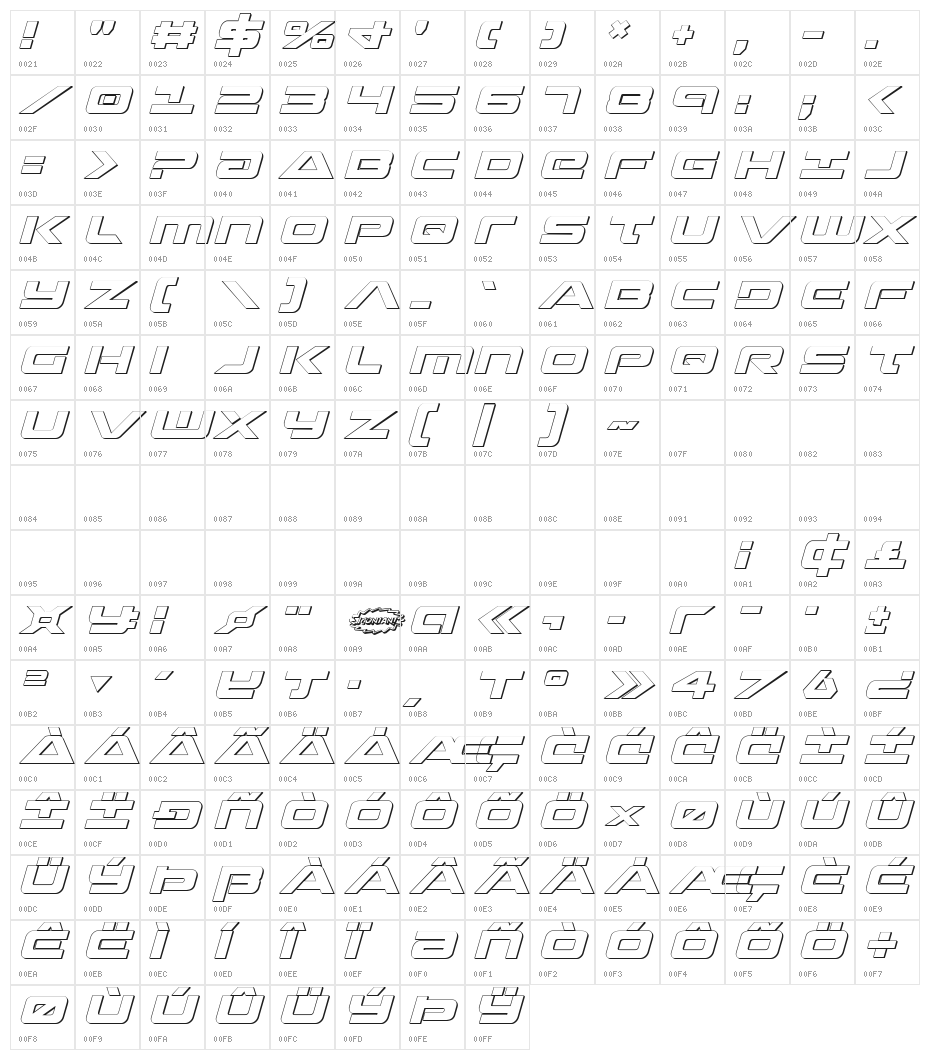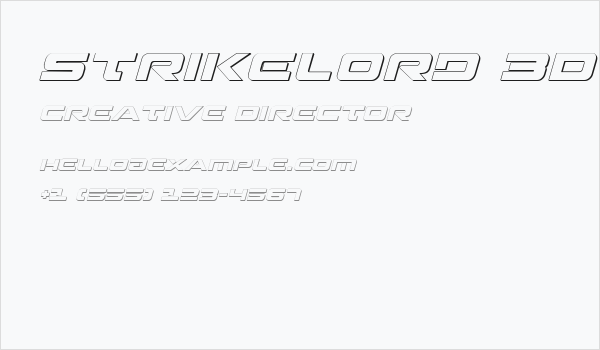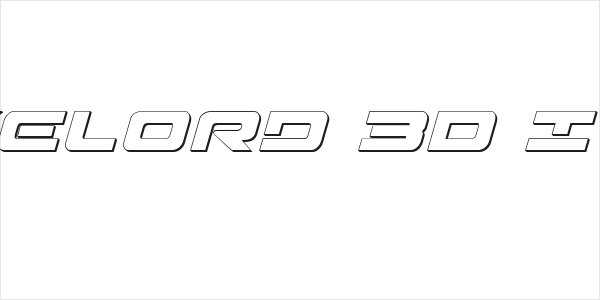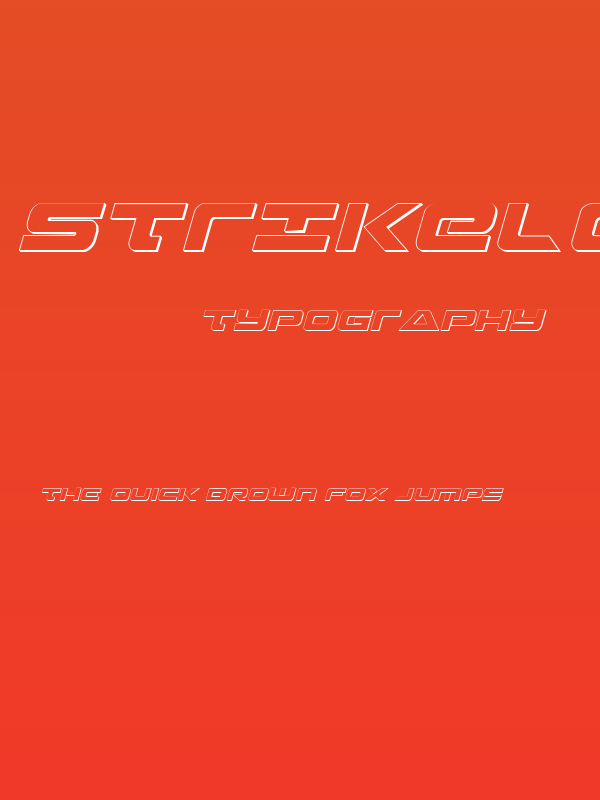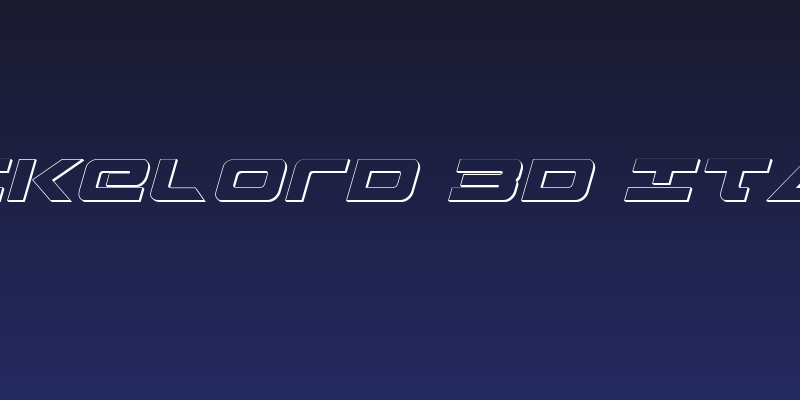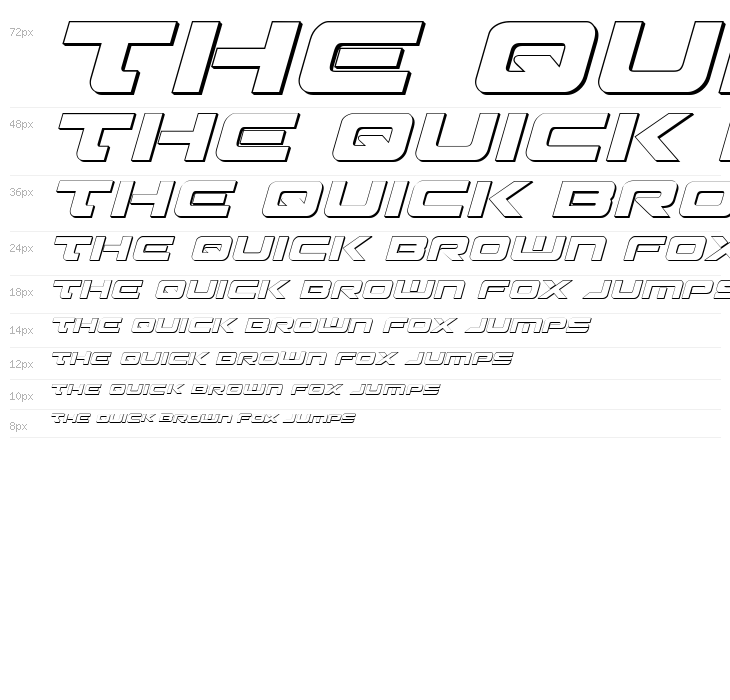
Strikelord 3D Italic Font
Strikelord 3D Italic Description
This font features a bold, three-dimensional outline style that gives it a futuristic and dynamic appearance. The characters are designed with a distinct italic slant, enhancing the sense of motion and energy. The geometric shapes and sharp angles contribute to a modern and edgy look, making it stand out in any design. The uppercase and lowercase letters maintain a consistent style, while the numerals and special characters are crafted to match the overall aesthetic. The font's unique design is ideal for projects that require a strong visual impact.